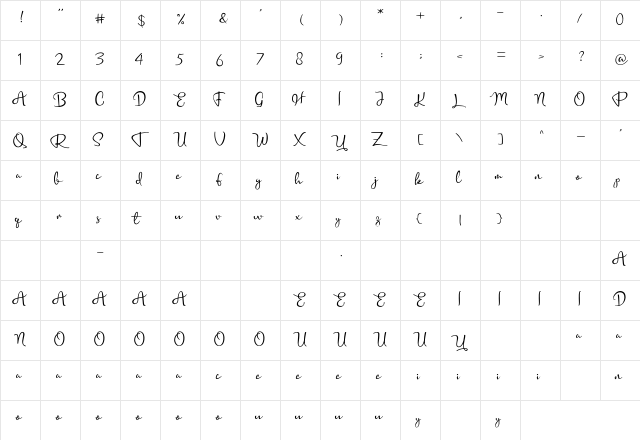
bridgetown Regular Font Preview
bridgetown Regular
bridgetown Regular Font Details
Design Context for bridgetown Typeface
bridgetown is a composed and adaptable typeface that performs quietly and consistently across a wide range of design contexts.